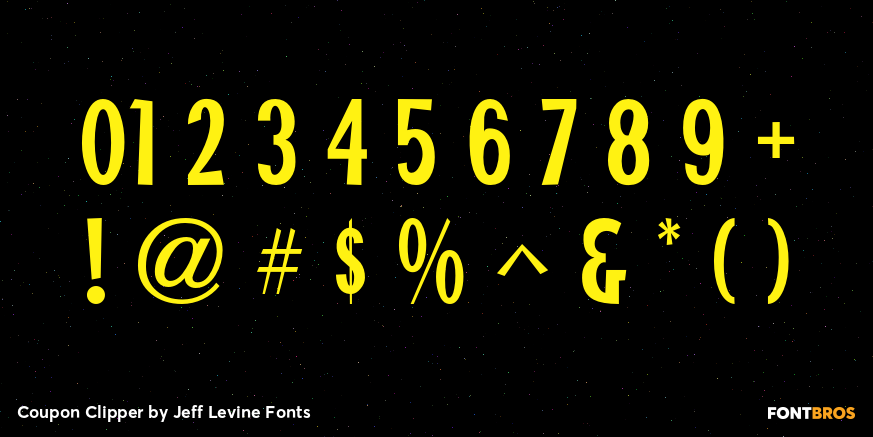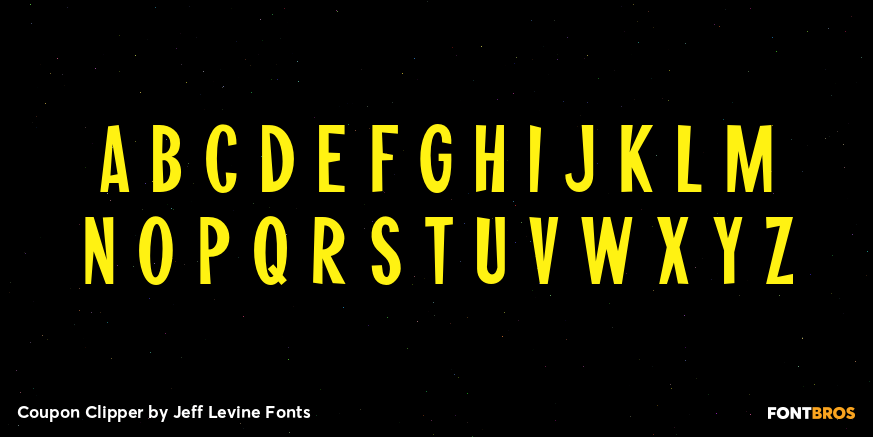
Coupon Clipper
Coupon Clipper JNL is a fun, playful, casual sanserif font that evokes some of the lighthearted typography of the late 50s and early 60s.